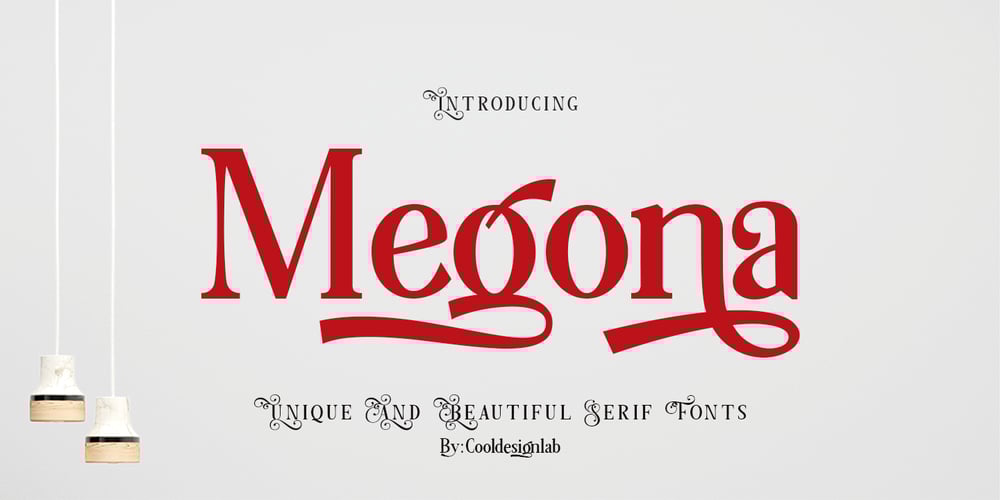
Megona Font Family was designed by Kurniadi Saputra and published by Cooldesignlab. Megona contains 1 styles and family package options. Megona is an elegant, unique, fashionable, luxurious, modern and elegant font with lots of ties and alternatives that will make your presentation even more amazing and stand out !!! Megona also supports Multi Language. and the PUA has been coded!This font is inspired by Indonesian batik cloth patterns with its own distinctive strokes. This font is perfect for any modern project including branding designs, logos, invitations, wedding decorations, website designs, Instagram, business cards, and more!